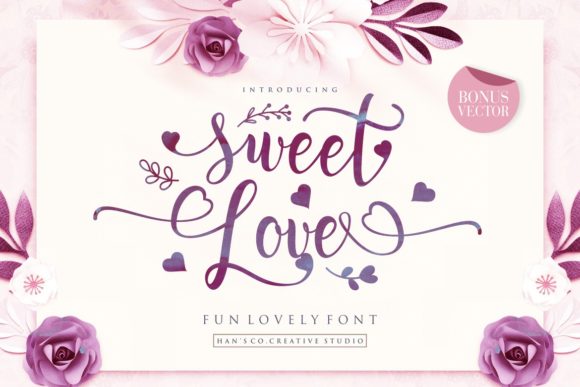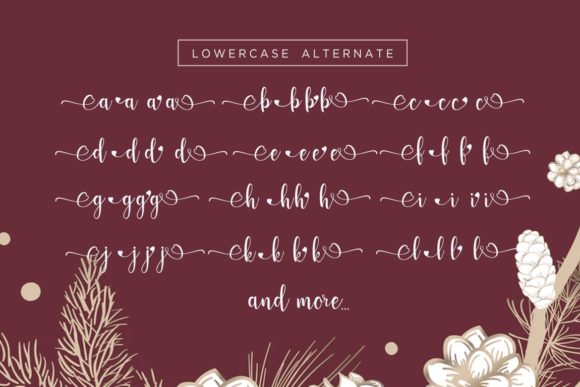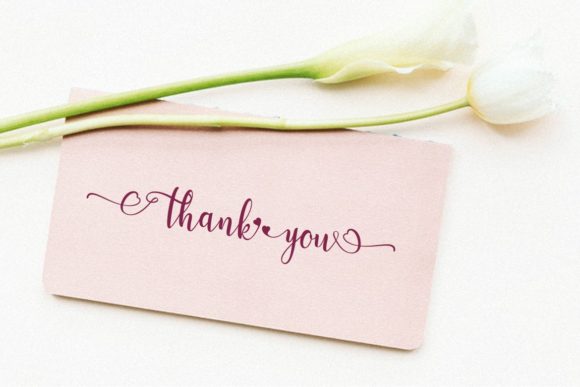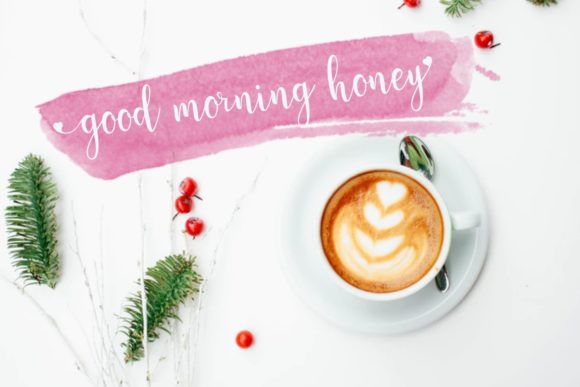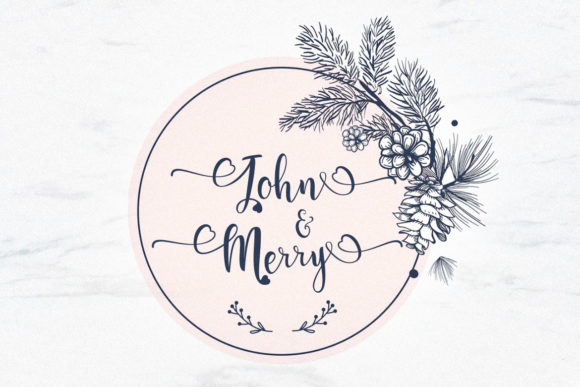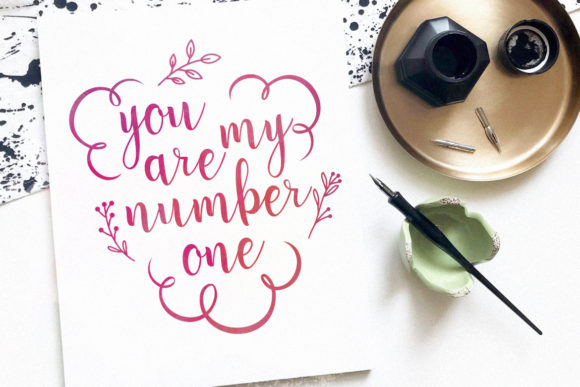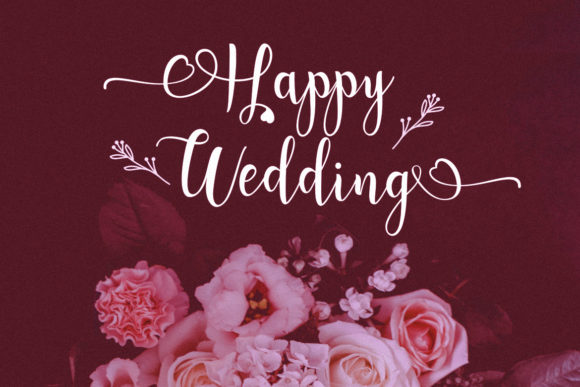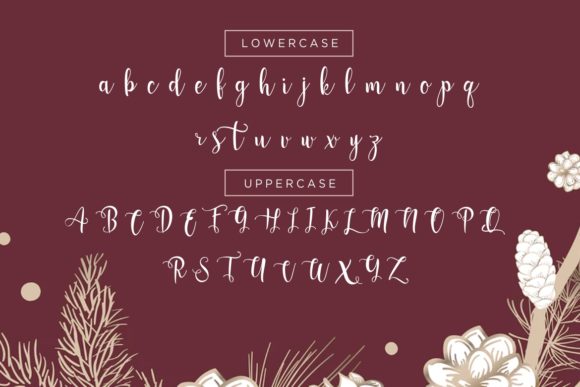
Sweet Love Font
About Sweet Love Font
Sweet Love is an incredibly sweet and delicious handwritten script with a lovely feel. Whether it’s Valentine’s Day or Christmas, this the ultimate font for turning any romantic crafts idea into a stunning piece of art!